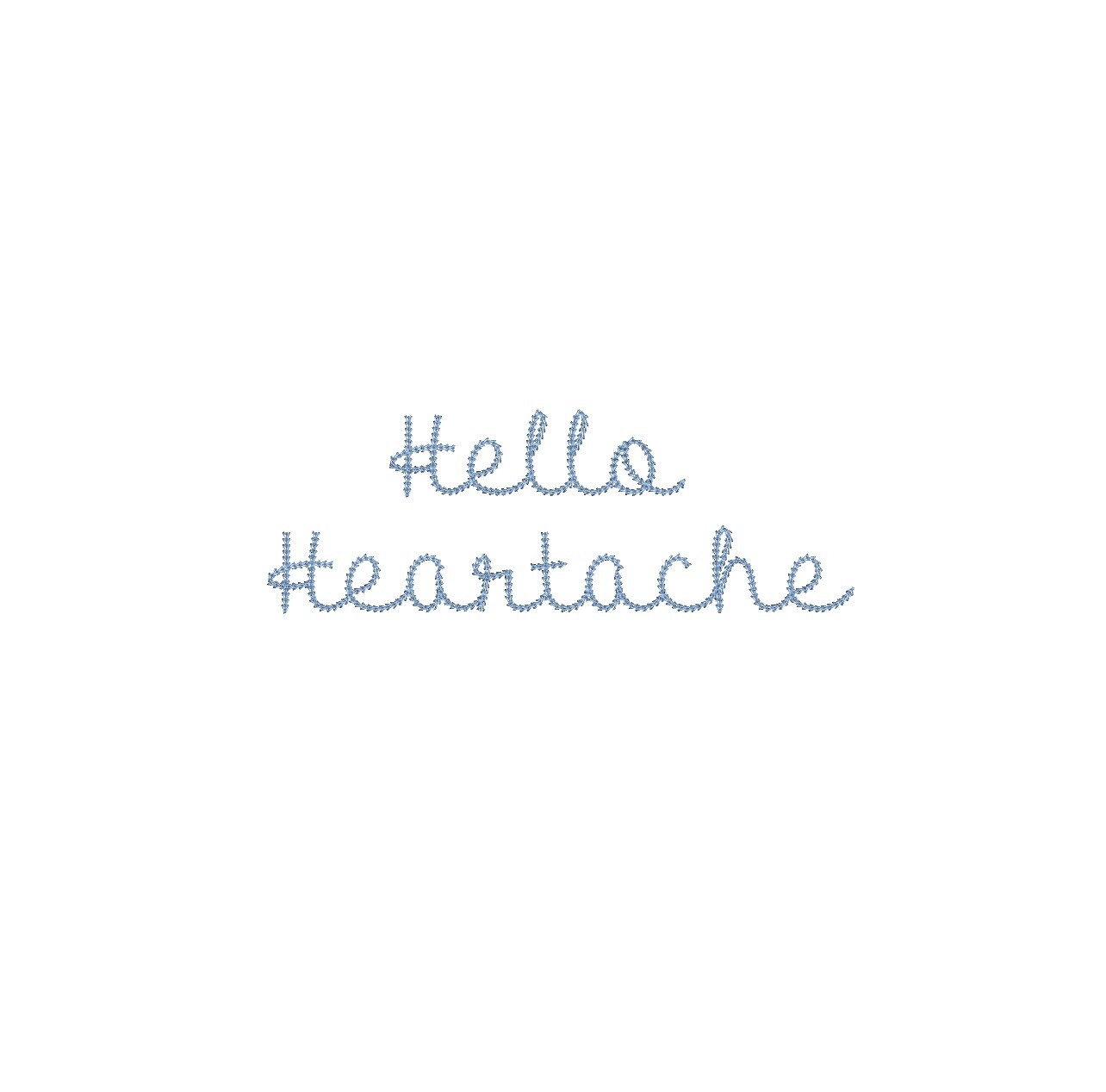
Elevate your embroidery with Hello Heartache Chain Stitch ESA font. Designed for Wilcom Studio e4.5.6 and Hatch 3 versions and newer, it adds an emotional depth to your designs. Meticulously crafted, the font's chain stitch artistry evokes sentiment in every project. Seamlessly integrate for captivating results that resonate. Hello Heartache transforms fabric into a canvas of raw emotion, infusing your creations with a heartfelt touch. Elevate your embroidery with this seamless blend of technology and artistry. Experience the power of Hello Heartache Chain Stitch ESA font to redefine stitching excellence. Upgrade your designs today for poignant impact.